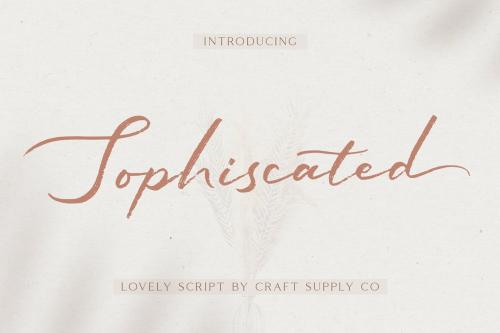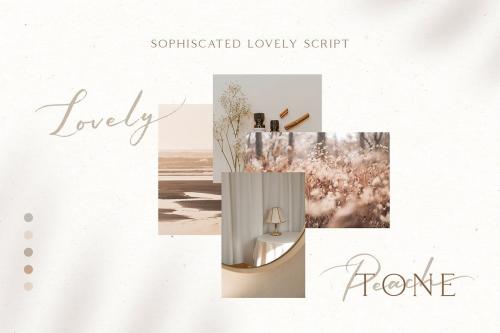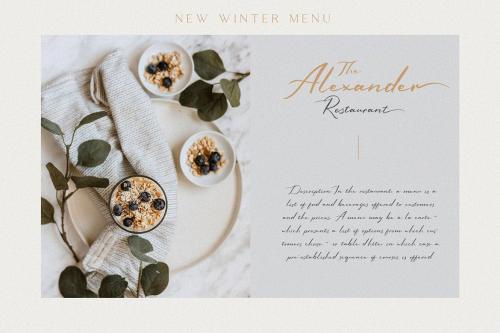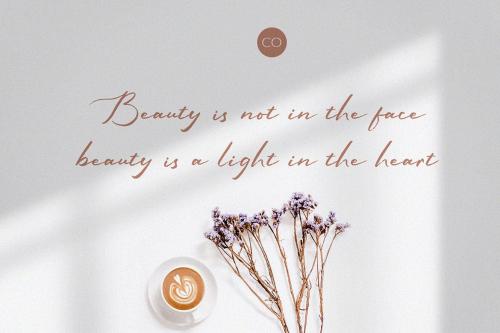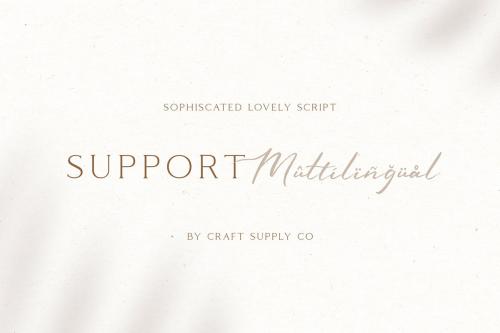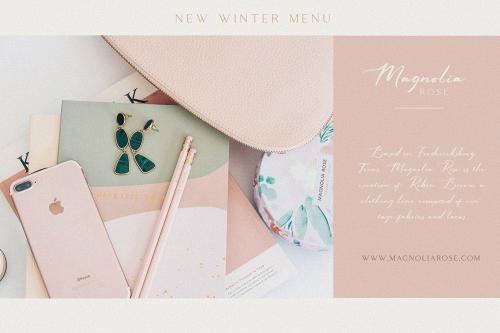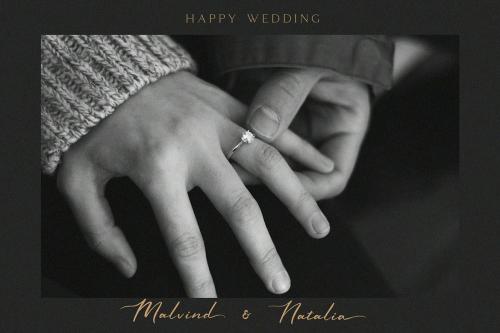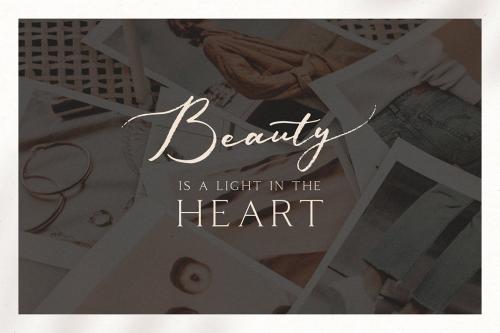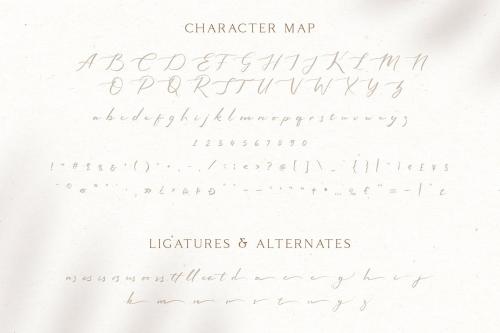
Sophisticated - 一个可爱的书法字体
Sophiscated - A Lovely Script Font
Sophiscated - A Lovely Script is an handwritten script font based on the expression of real handwriting. Sophiscated - A Lovely Script will work perfectly for fashion, e-commerce brands, trend blogs, wedding boutiques or any business that wants to appear upscale and chic. Sophiscated - A Lovely Script also Suitable for Logo, greeting cards, quotes, posters, branding, name card, stationary, design title, blog header, art quote, typography, art, modern envelope lettering or book design, happening style like handdrawn design or watercolor design theme, craft design, any DIY project, book title, or any purpose to make your art/design project look pretty and trendy.
**Introducing New Font : Sophiscated - A Lovely Script Font**
Sophiscated - A Lovely Script is an handwritten script font based on the expression of real handwriting. Sophiscated - A Lovely Script will work perfectly for fashion, e-commerce brands, trend blogs, wedding boutiques or any business that wants to appear upscale and chic.
Sophiscated - A Lovely Script also Suitable for Logo, greeting cards, quotes, posters, branding, name card, stationary, design title, blog header, art quote, typography, art, modern envelope lettering or book design, happening style like handdrawn design or watercolor design theme, craft design, any DIY project, book title, or any purpose to make your art/design project look pretty and trendy.
**Features :**
- Uppercase & Lowercase
- Special Ligatures & Alternates (as es is os us oo ss tt ll ee t d a c e g h i j k m n r s t u y z)
- Numerals & Punctuations (OpenType Standard)
- Accents/Multilingual characters (AÀÁÂÃÄÅCÇDÐEÈÉÊËIÌÍÎÏNÑOØÒÓÔÕÖUÙÜÚÛWYÝŸỲŸÆŒßÞ)
- PUA Encoded